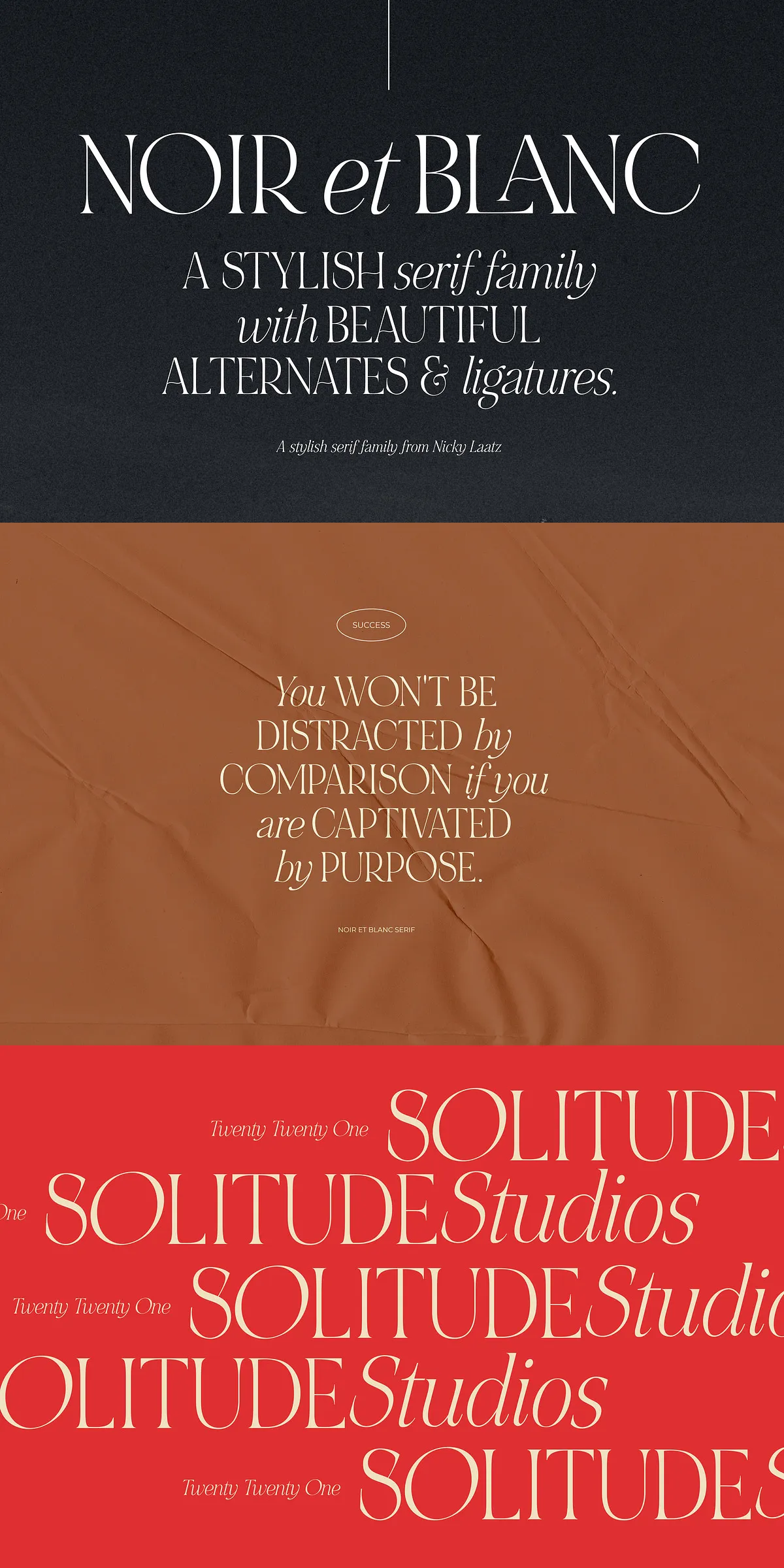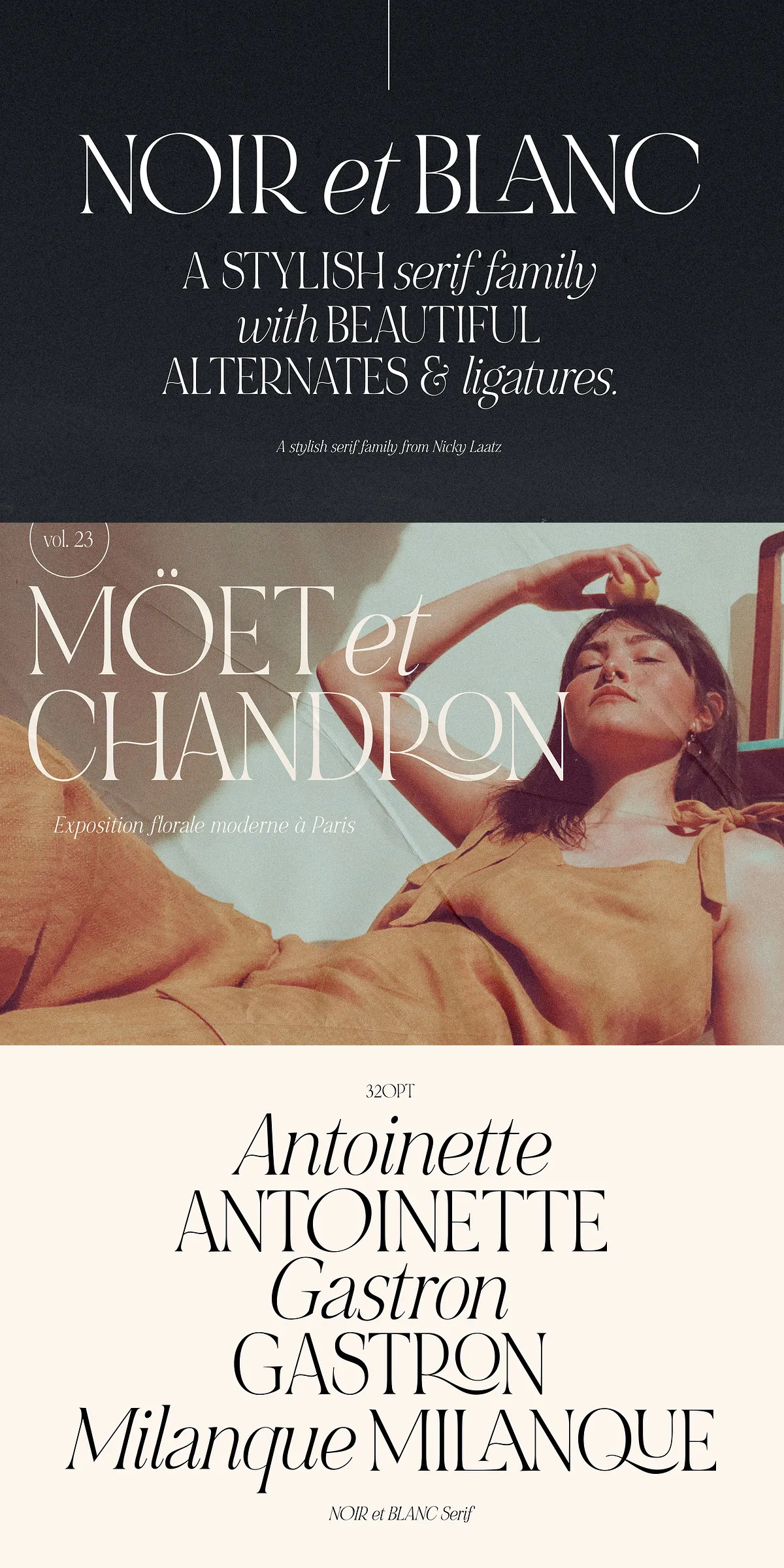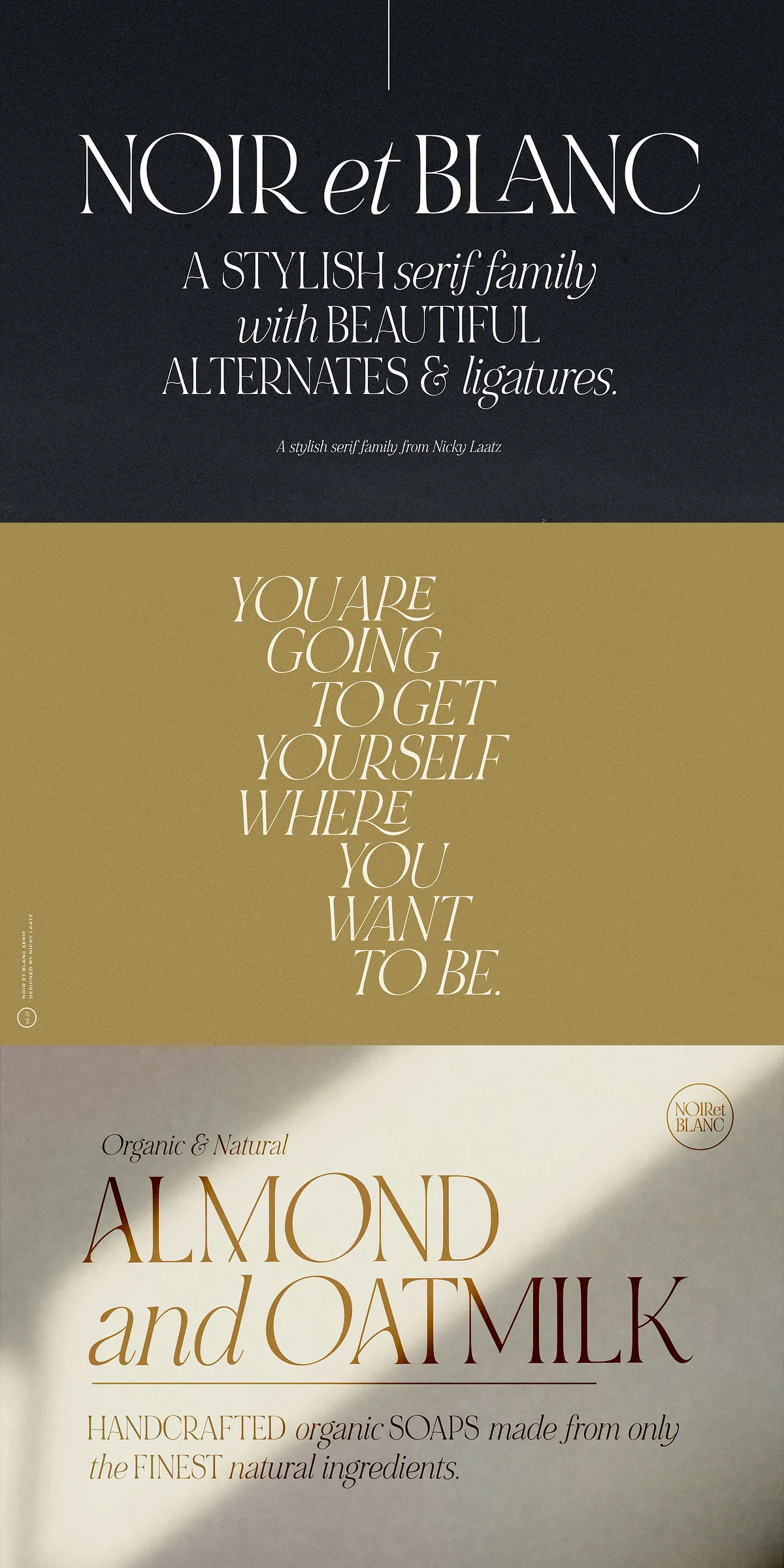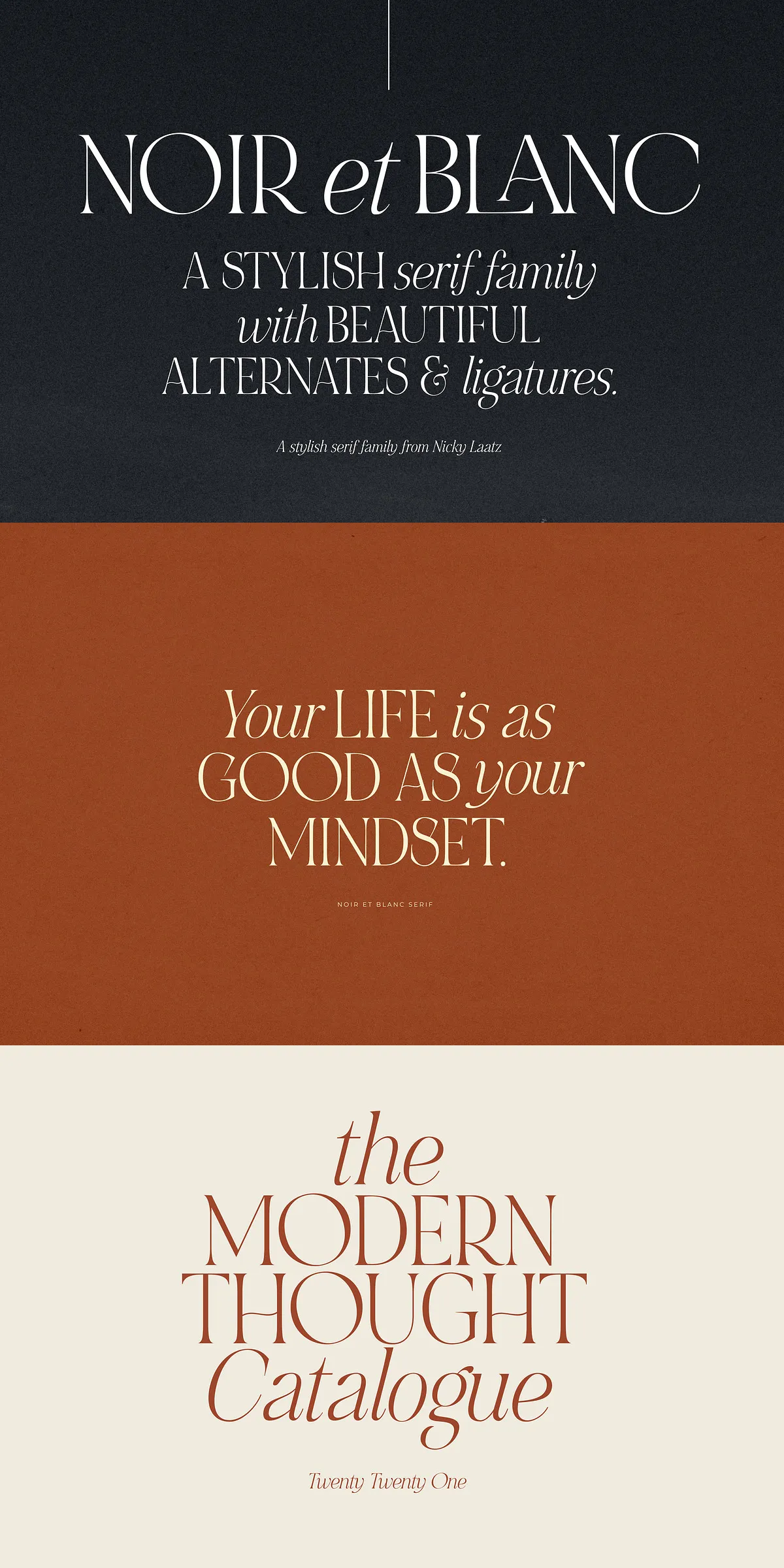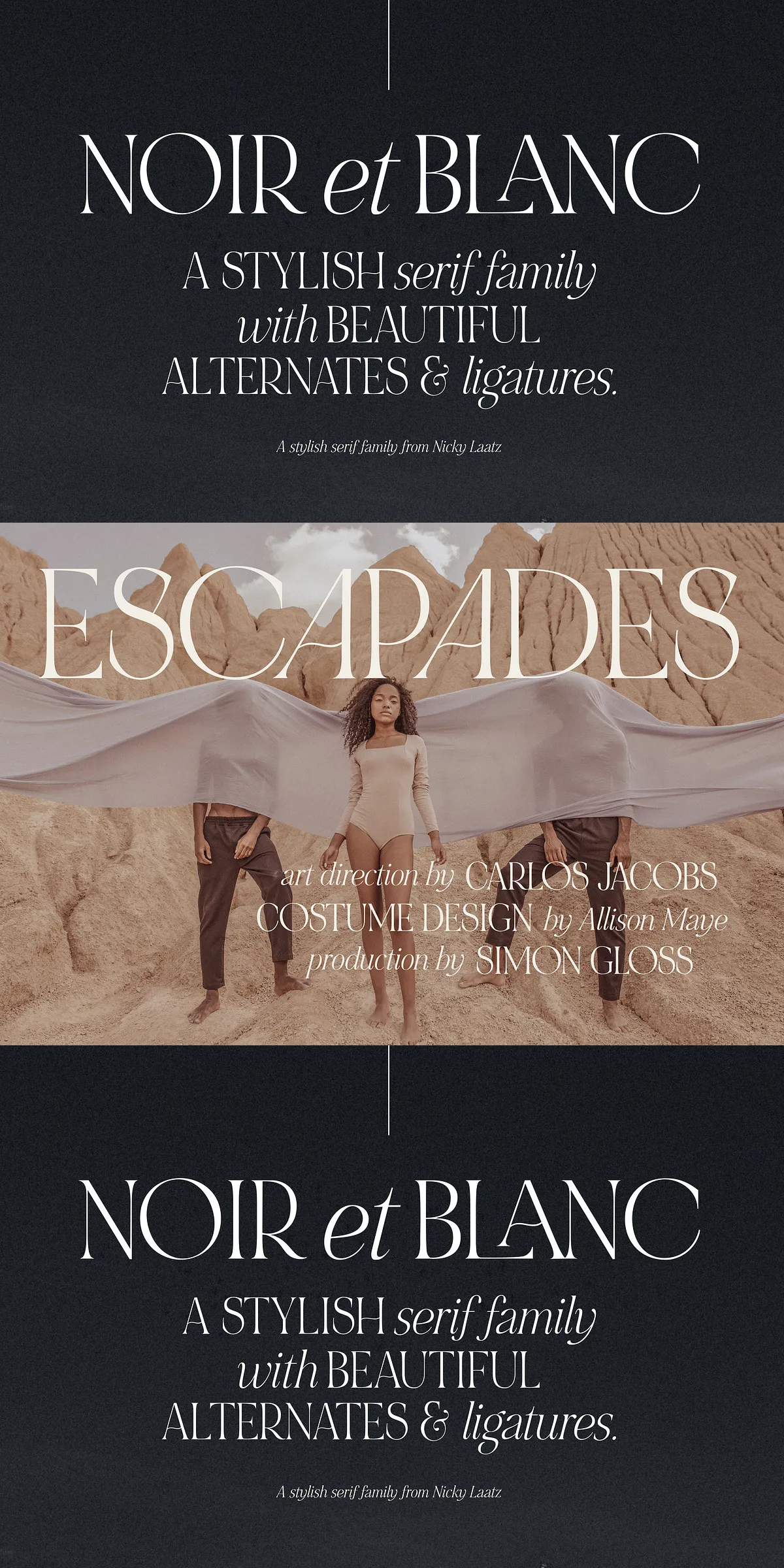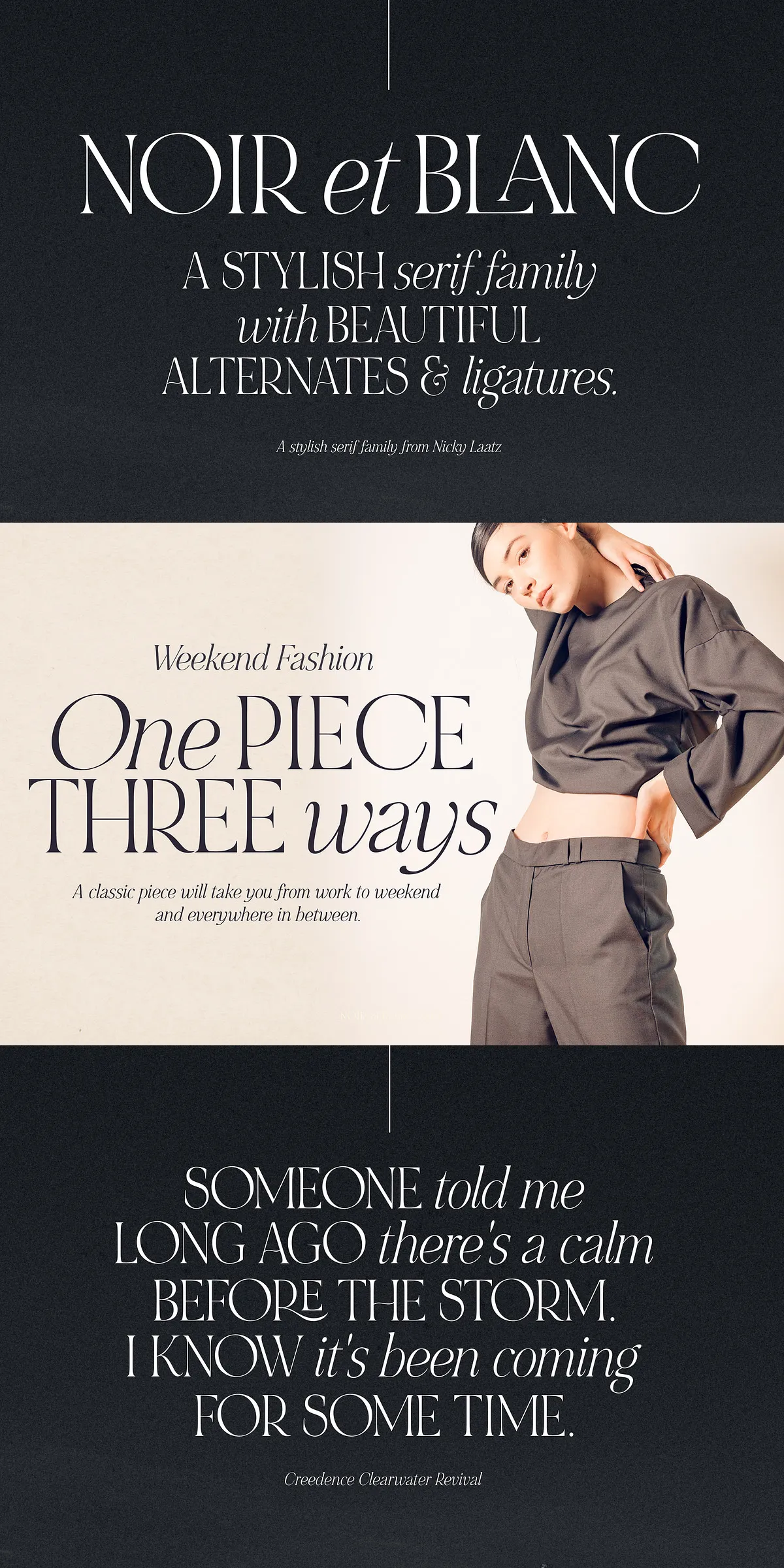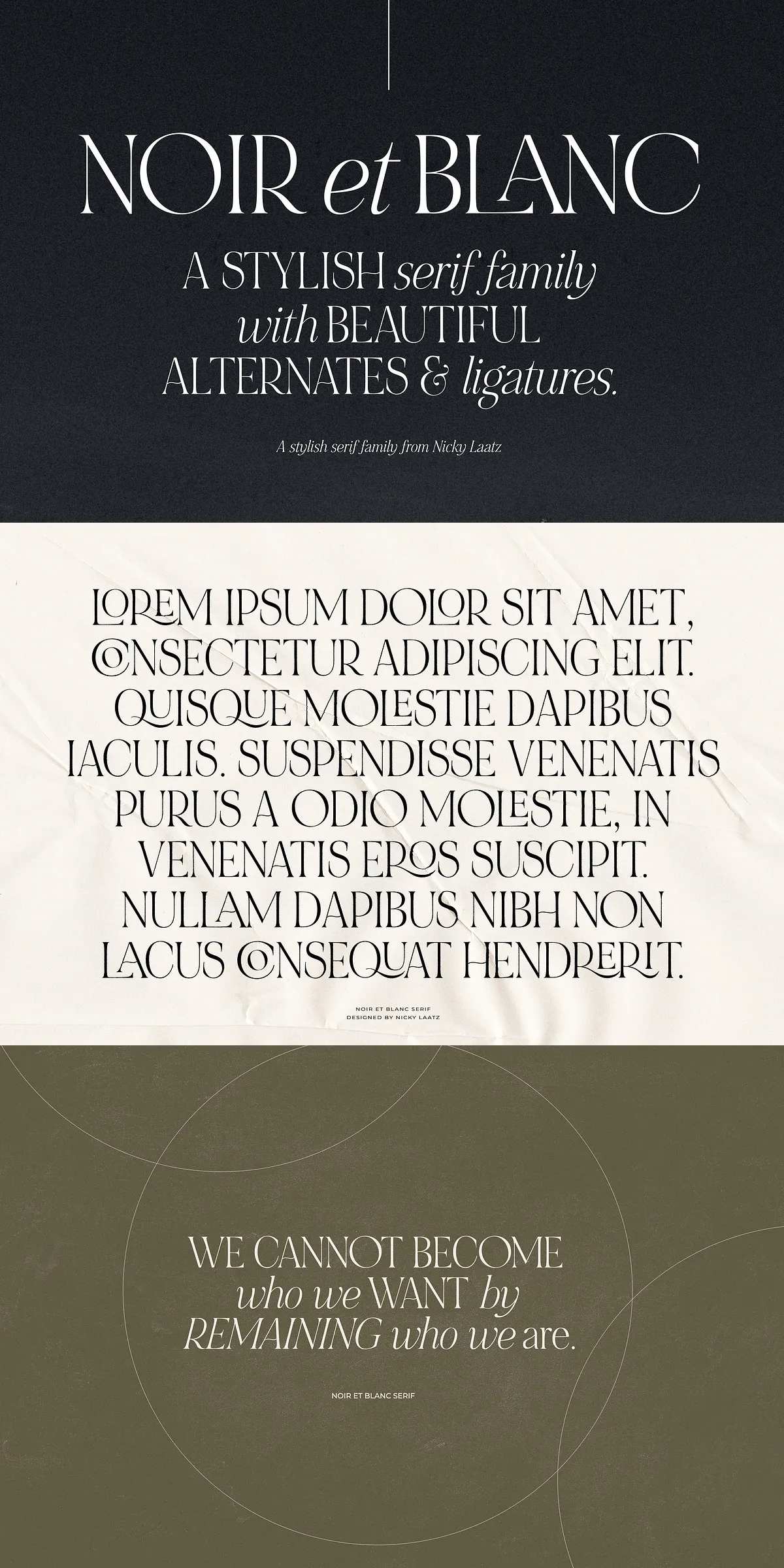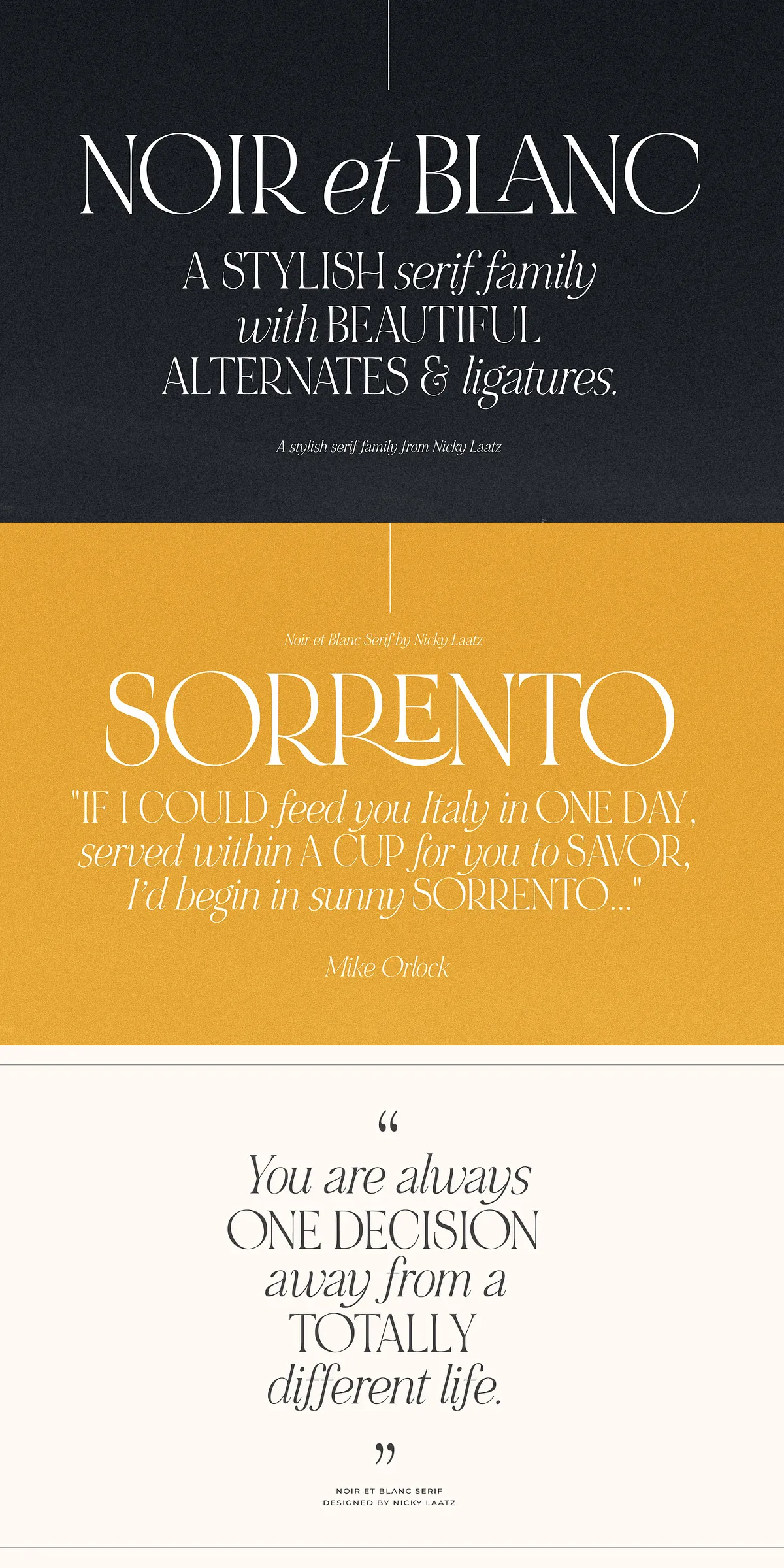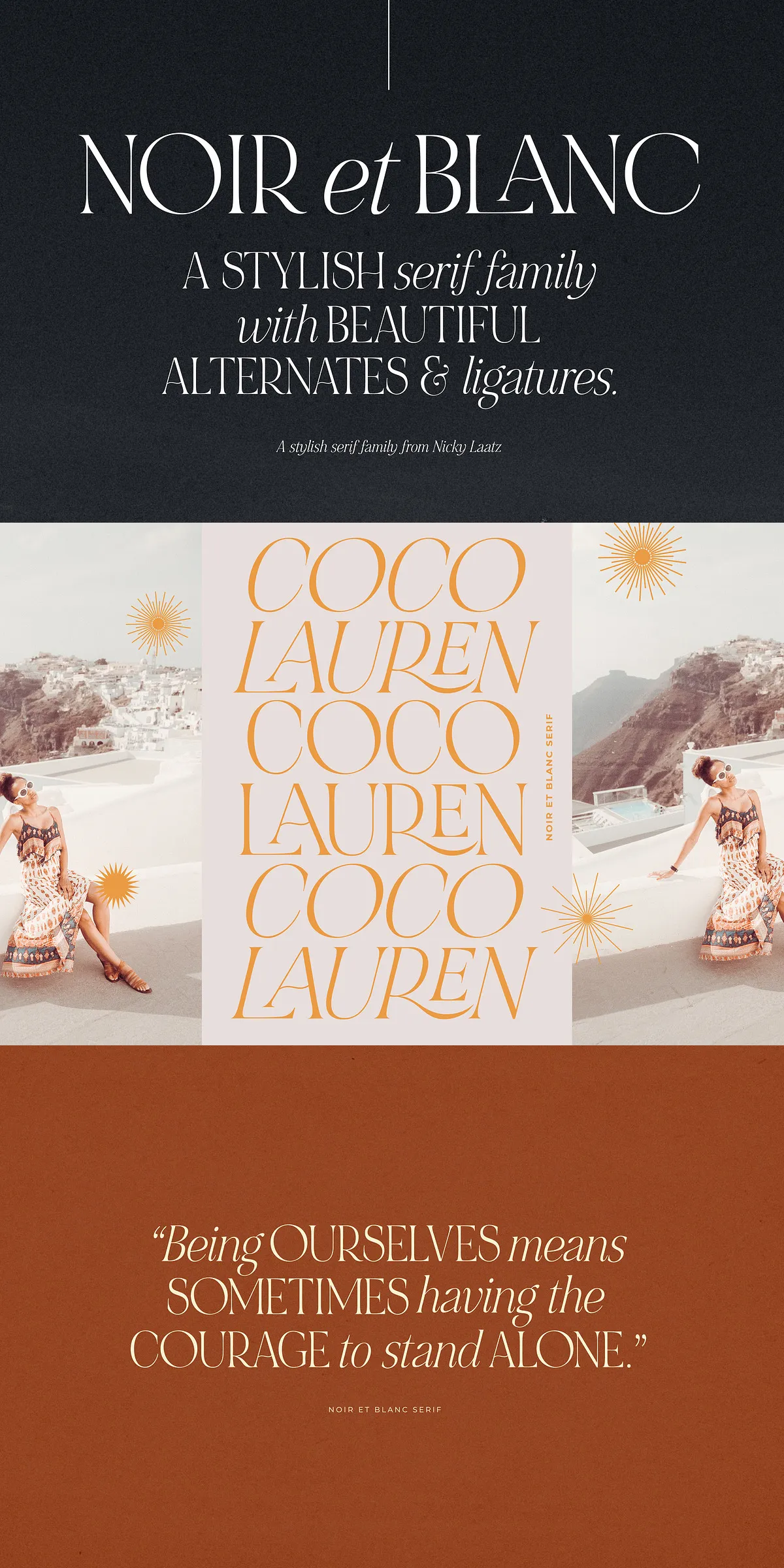
Step into the spotlight with NOIR et BLANC — a striking serif type family where contrast isn’t just a feature, it’s the soul. Designed as a unified visual dialogue between bold uppercase and sleek lowercase, this font delivers a level of elegance and drama that commands attention and exerts control over any design landscape.
Unmatched Visual Harmony in Black and White
The magic of NOIR et BLANC lies in its intentional duality. The Regular Serif boasts bold, voluptuous uppercase letters with rich, deep strokes — powerful and authoritative. In perfect counterpoint, the Italic version introduces a smooth, sultry lowercase flow, delicate and refined. Together, they create a visual rhythm of tension and balance — like a fashion editorial, a film noir poster, or a high-end product reveal.
This isn’t random contrast. It’s meticulously engineered. The weight distribution, stroke modulation, and proportioning ensure that both styles are not just complementary, but intrinsically connected. Use them together for branding, headlines, or cover designs where sophistication and impact must coexist.
Three Refined Weights for Maximum Versatility
Adaptability is built into every detail. NOIR et BLANC offers three subtly varying weights:
- Light — Delicate and refined. Ideal for elegant invitations, fashion magazine layouts, and minimalistic design where subtle presence matters.
- Regular — The heart of the family. Balanced, powerful, and instantly recognizable. Perfect for headlines, logos, and digital branding.
- Bold — Unapologetically strong. Makes a statement on posters, packaging, and large-format prints where dominance is required.
These weights ensure crisp readability at any size — from micro-text on a business card to massive billboards — and perform flawlessly on both light and dark backgrounds.
Elevate Your Typography with Opentype Power
Transform ordinary text into extraordinary design with built-in features that unleash the font’s full potential:
- Beautiful Ligatures — Automatically connect letters like “fi”, “fl”, “ff”, and custom pairs for a polished, professional finish. Say goodbye to awkward gaps.
- Stylistic Alternates — Replace standard characters with unique, alternate forms to create distinction and personality in every project.
- Contextual Features — Advanced OpenType functionality adjusts letterforms based on context, ensuring seamless integration across complex layouts.
Designed for Real Designers — Ready to Use
NOIR et BLANC is built for workflow efficiency and creative freedom:
Where NOIR et BLANC Owns the Room
Use this font when the stakes are high and elegance is non-negotiable:
- Fashion & Luxury Branding — Create packaging, lookbooks, and storefront displays that feel exclusive and high-end.
- Editorial & Magazine Design — Use in feature headlines, pull quotes, and mastheads to add visual drama and class.
- Event & Festival Signage — Make posters and digital promotions that feel cinematic and unforgettable.
- Wedding Invitations & Stationery — Bring timeless romance and bold contrast to your most personal designs.
Pair with Precision, Design with Boldness
For maximum visual impact, pair NOIR et BLANC with complementary companions:
- Minimalist Sans-Serifs — Let the serif’s drama shine against clean, modern backgrounds.
- Monochrome or Subtle Textures — Enhance the black-and-white contrast with paper grain, texture overlays, or soft gradients.
- Gold, Silver, or Deep Charcoal Accents — Add metallic or rich dark tones to elevate the luxury feel.
Claim Your Signature Visual Voice
NOIR et BLANC isn’t just a font. It’s a design philosophy. It’s for creators who demand more than legibility — they demand emotion, elegance, and unforgettable presence.